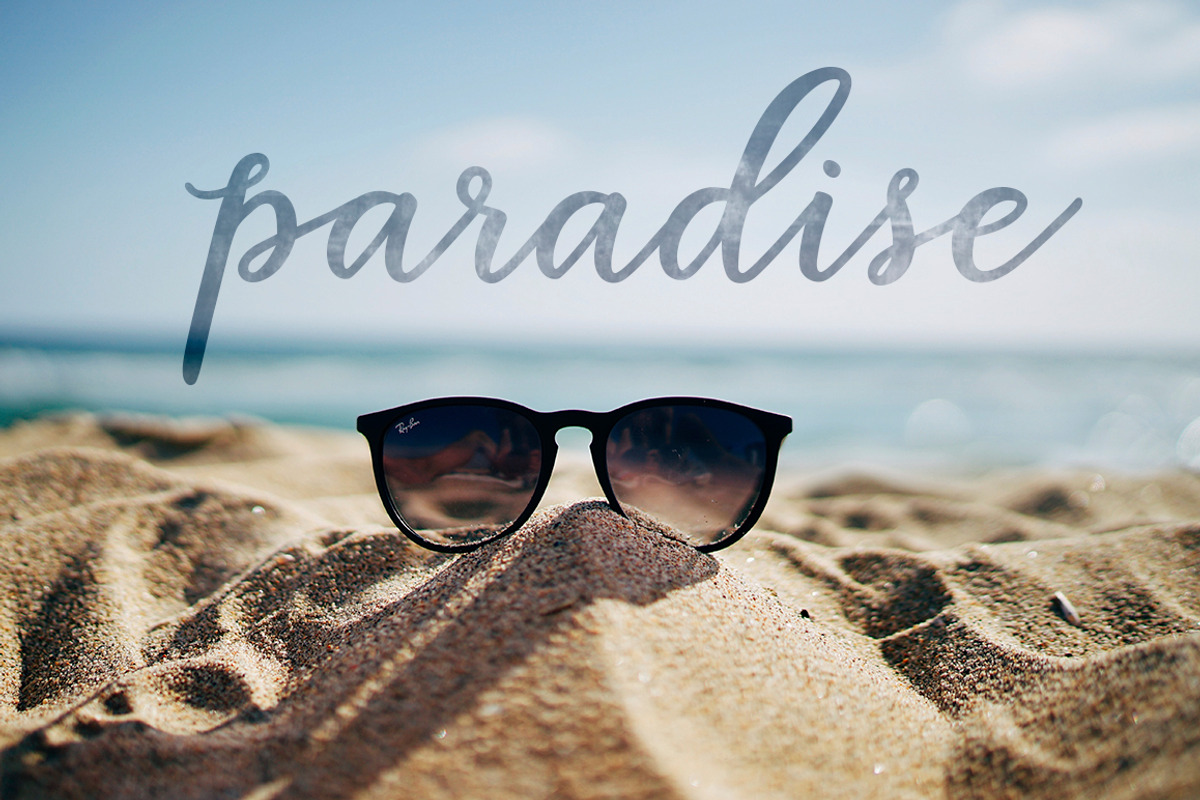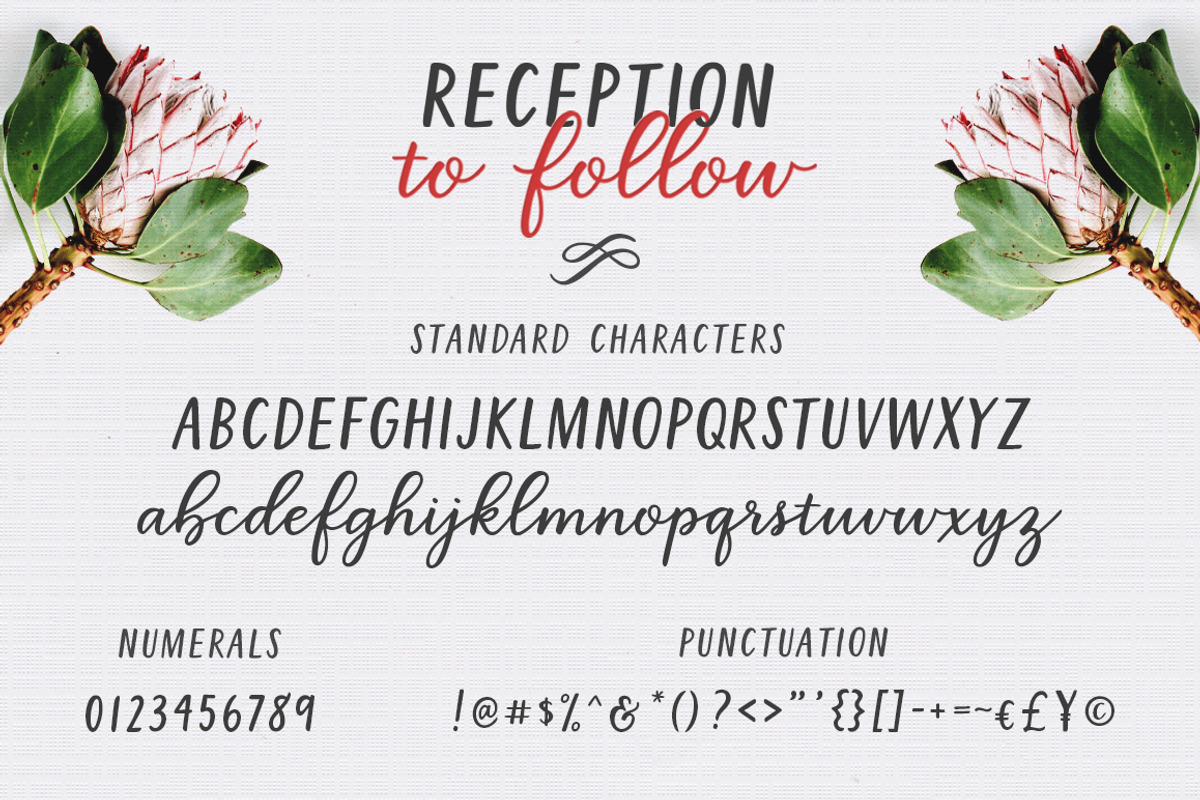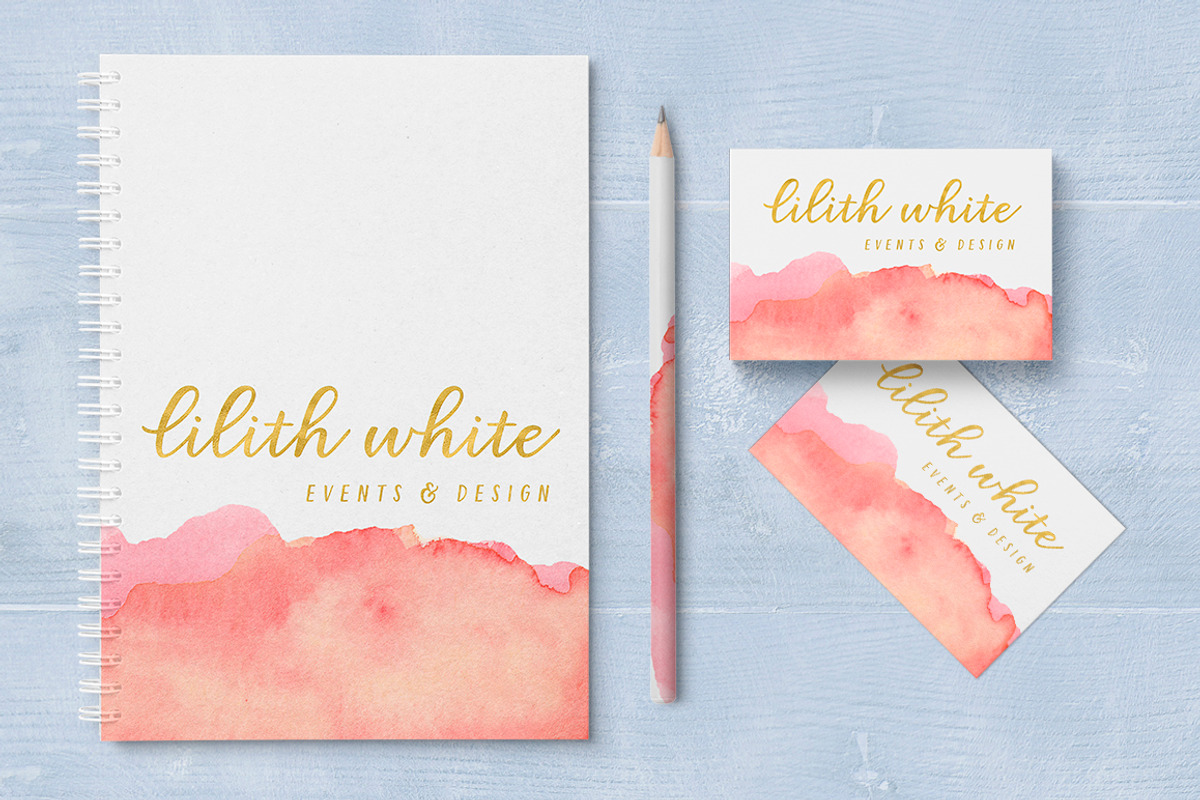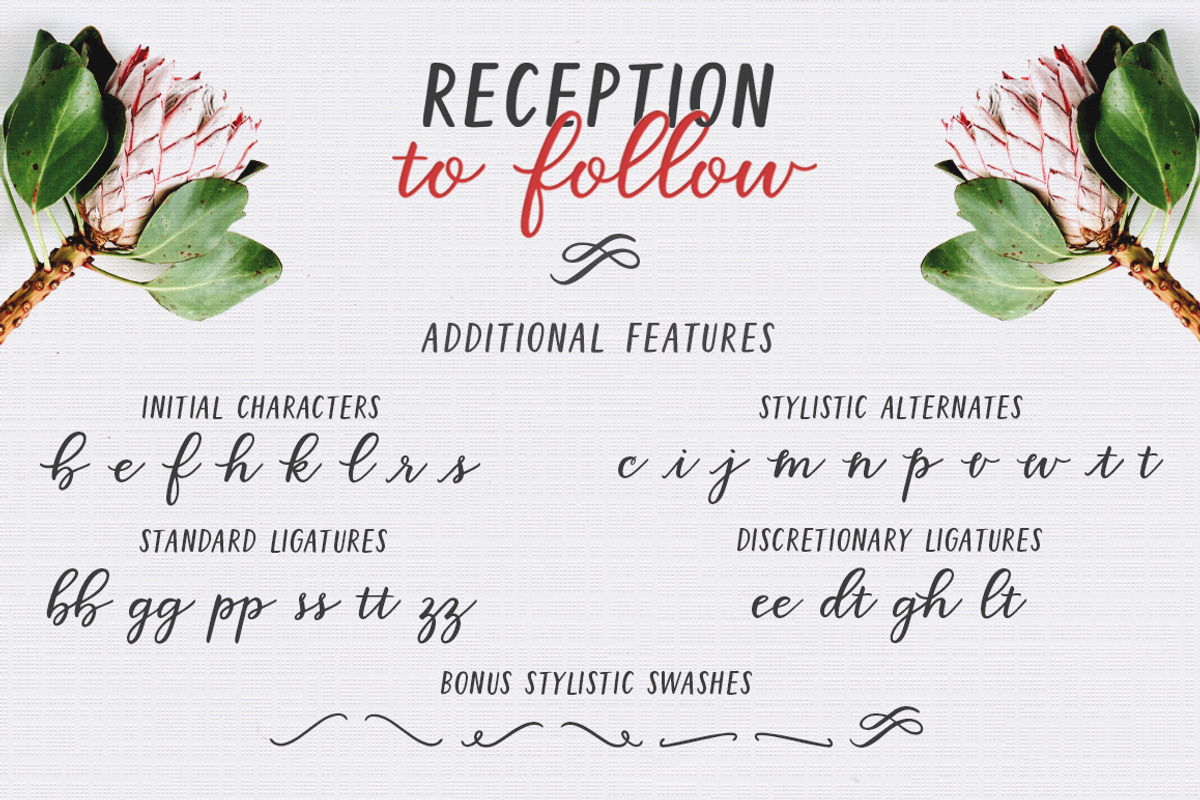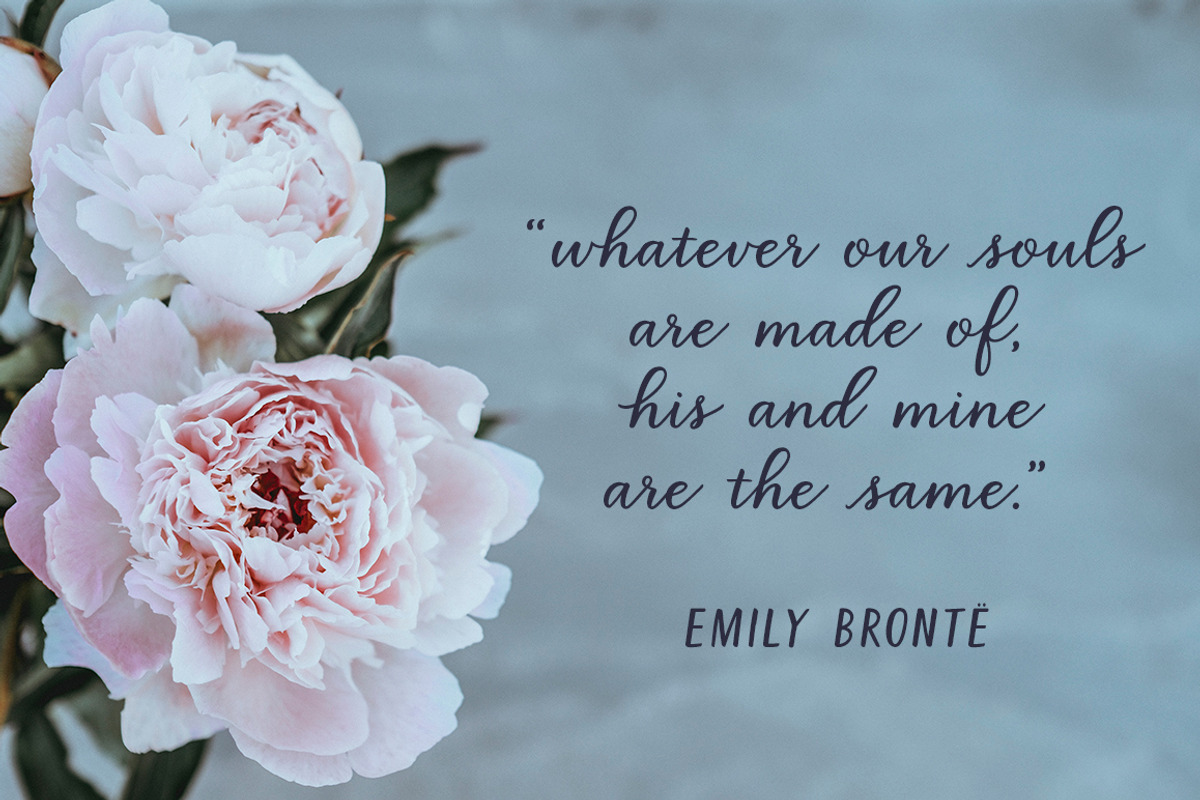
Reception to Follow
Please welcome, Reception to Follow! A festive font duo wed in handwritten matrimony.
Reception to Follow is a hand lettered font duo comprised of a perfect all-caps sans serif font and a lovely, smooth lowercase script. Excellent for adding a touch of style and class to weddings, handwritten quotes, invitations, announcements, merchandise, logos, social media, website design and much more!
The lowercase script style comes with an assortment of additional features to make each design distinctive and eye-catching including 8 initial characters, 10 stylistic alternates, 6 standard ligatures, and 4 discretionary ligatures.